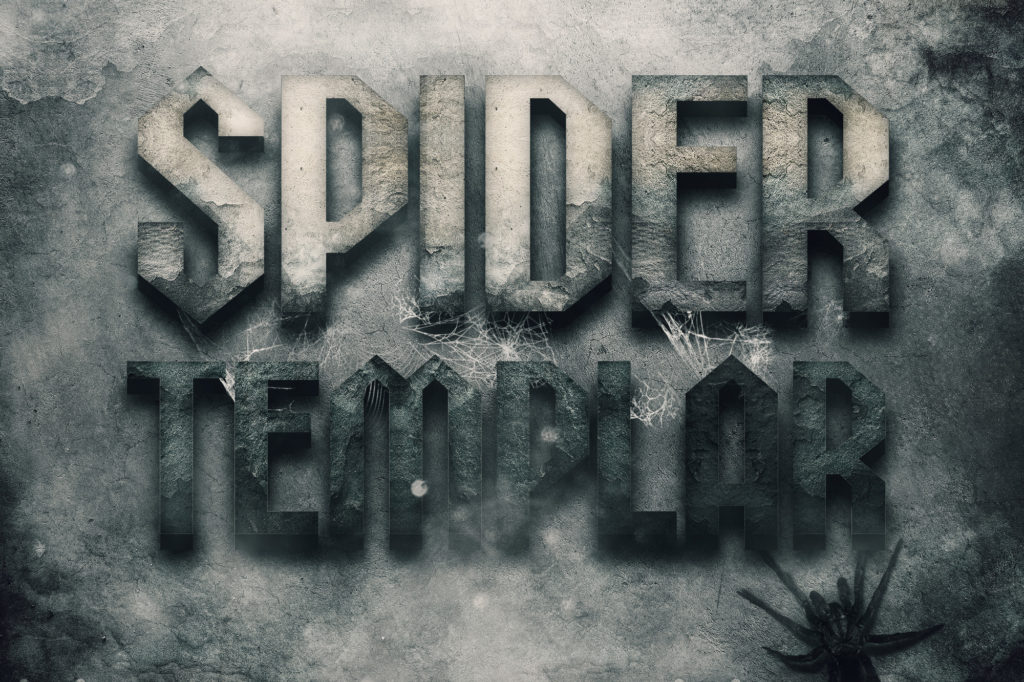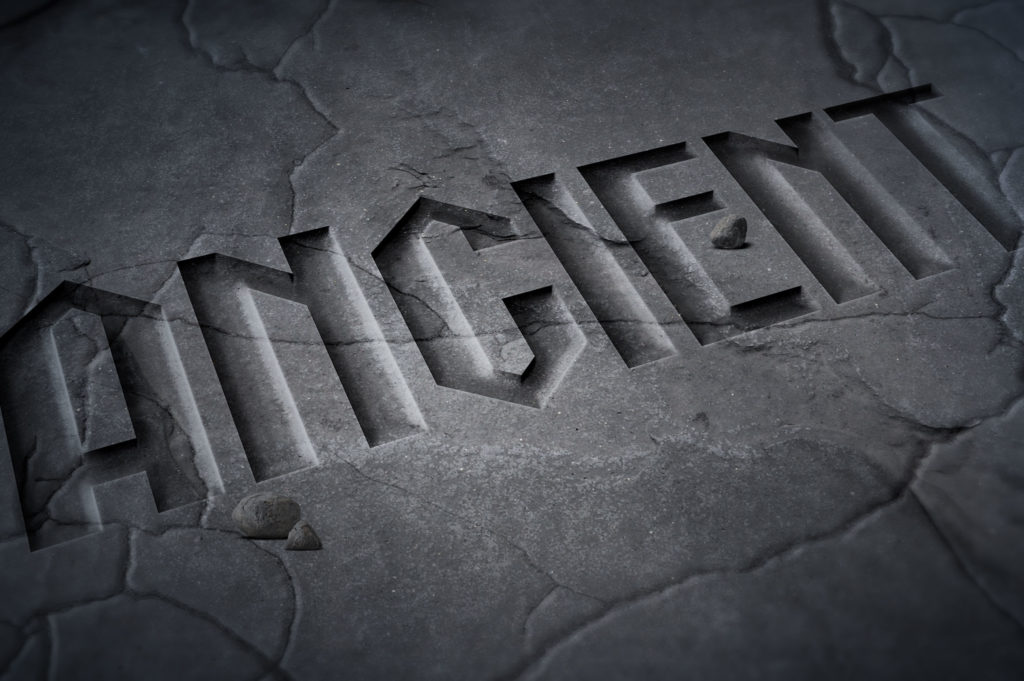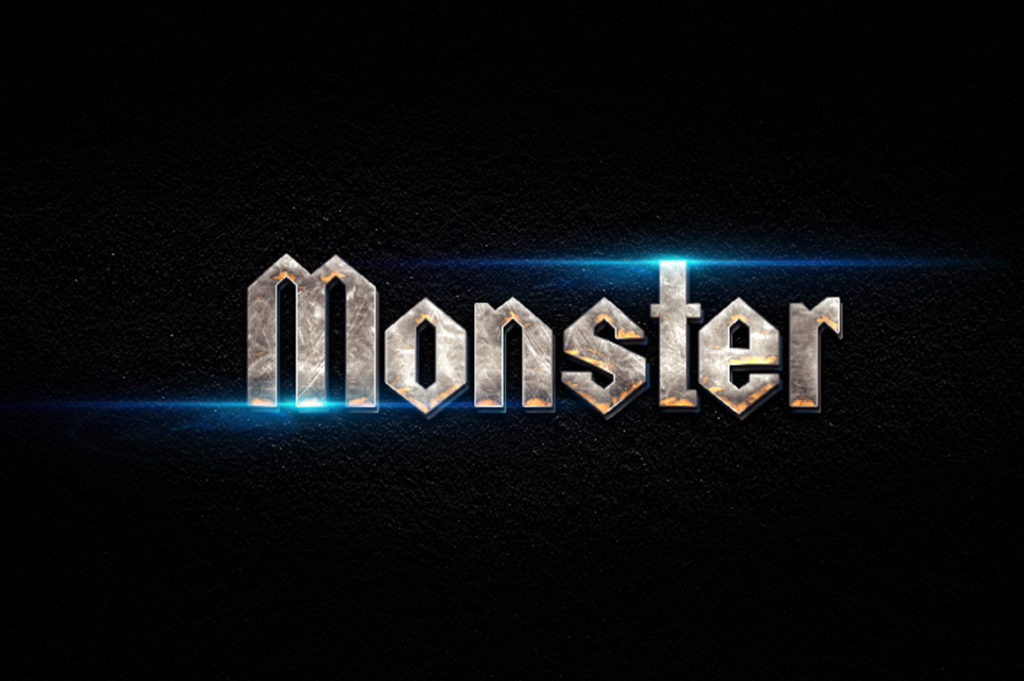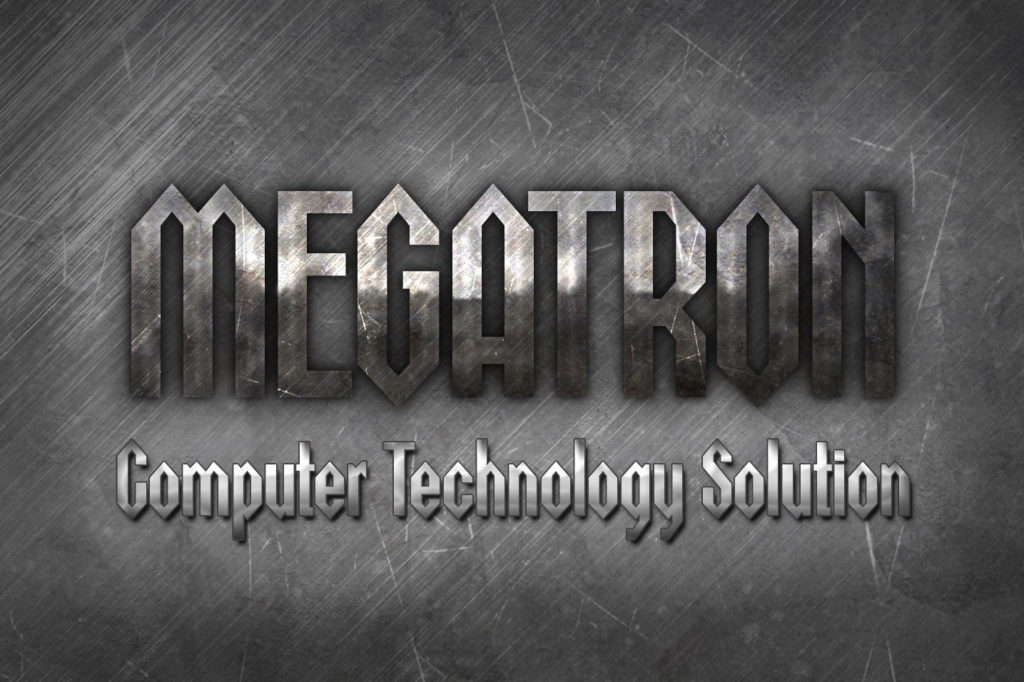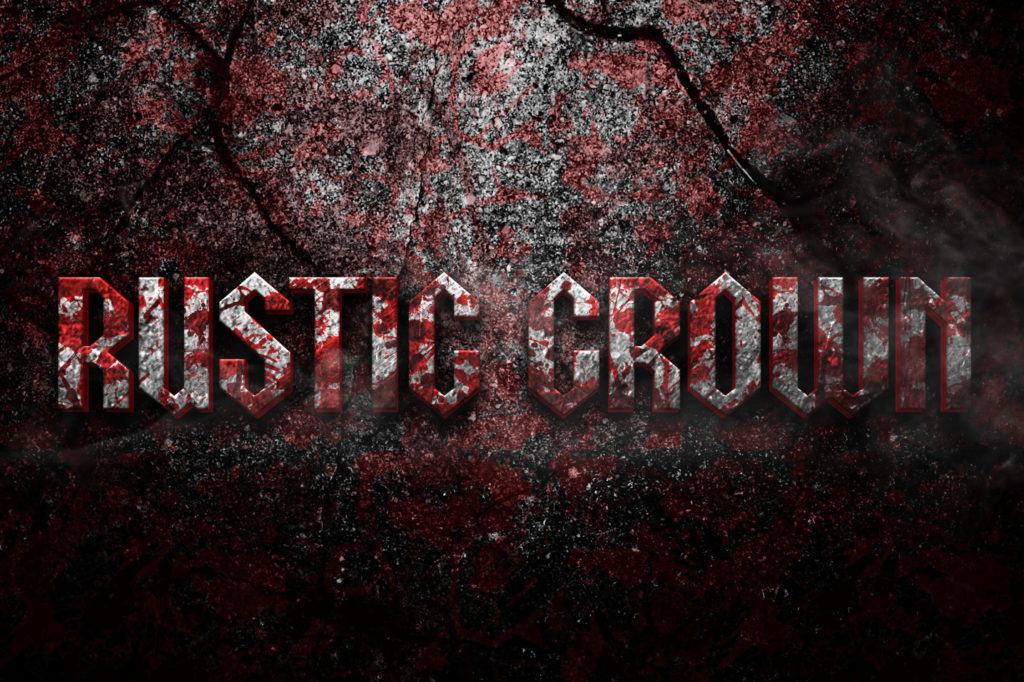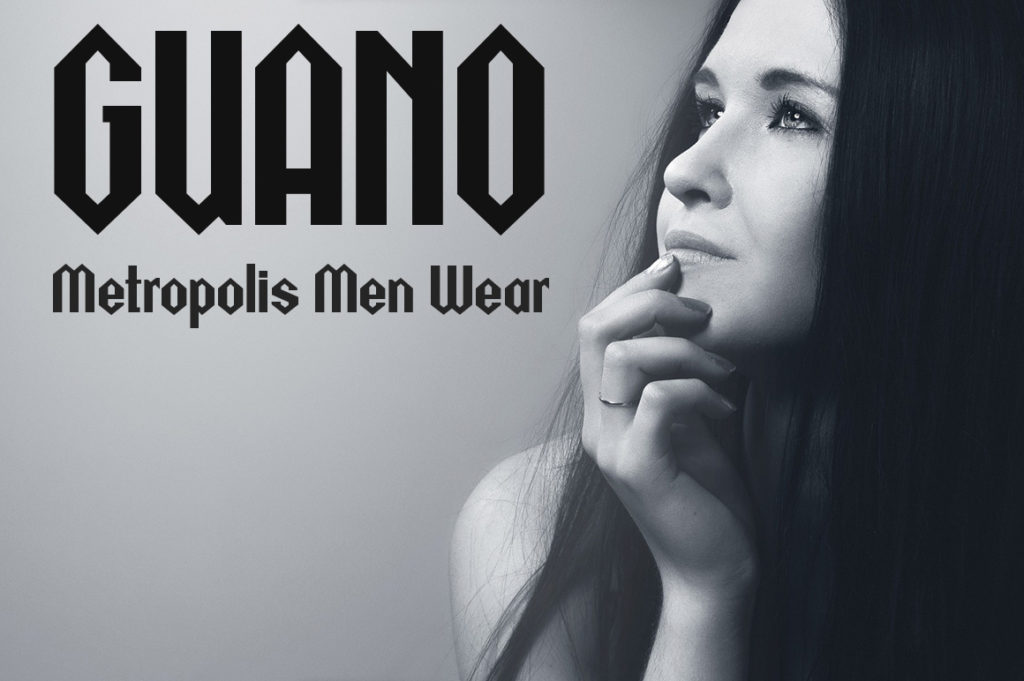
Introduction to Metalick Font
Introducing a modern hexagonal and Hi tech font.
This font great for logos or titles Features 275 glyphs with complete character support for Latin and Eastern Language.
Key Features of Metalick Font